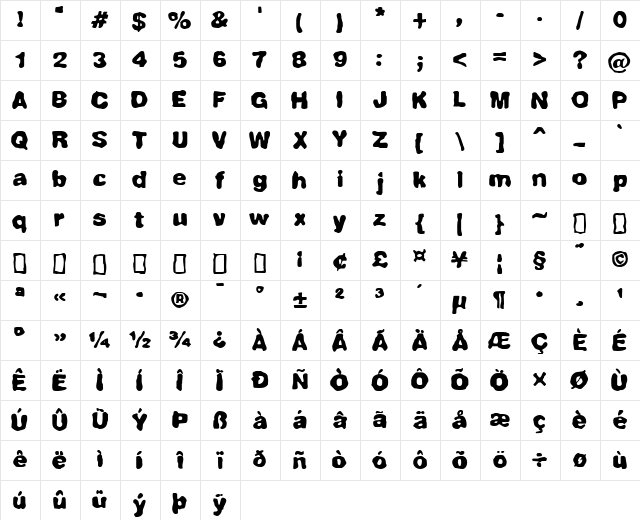
Fully Completely (BRK) Regular
Design Context for Fully Completely (BRK) Typeface
Fully Completely (BRK) is a composed and adaptable typeface that performs quietly and consistently across a wide range of design contexts.